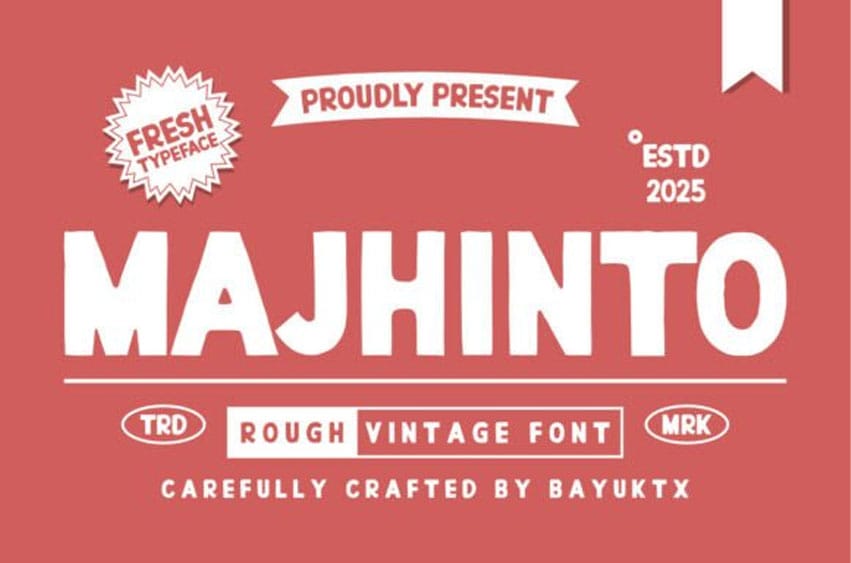
Majhinto Font Vintage Font is a classic-style display typeface with a rough texture that evokes a retro, rustic, and authentic feel. Inspired by vintage signage and poster typography, it retains flexibility for a wide range of modern design applications.
Perfect for branding, packaging, posters, apparel, labels, and social media, this font conveys an old-school, handmade, and bold character. The textured details add a natural touch, making every design more vibrant and full of personality.
Majhinto Rough Vintage Font works beautifully for logos and branding, vintage posters and flyers, apparel and merchandise, labels and packaging, as well as quotes and typography art.
With this typeface, every design gains a classic, strong, and distinctive character that ensures your visual message stands out with style.